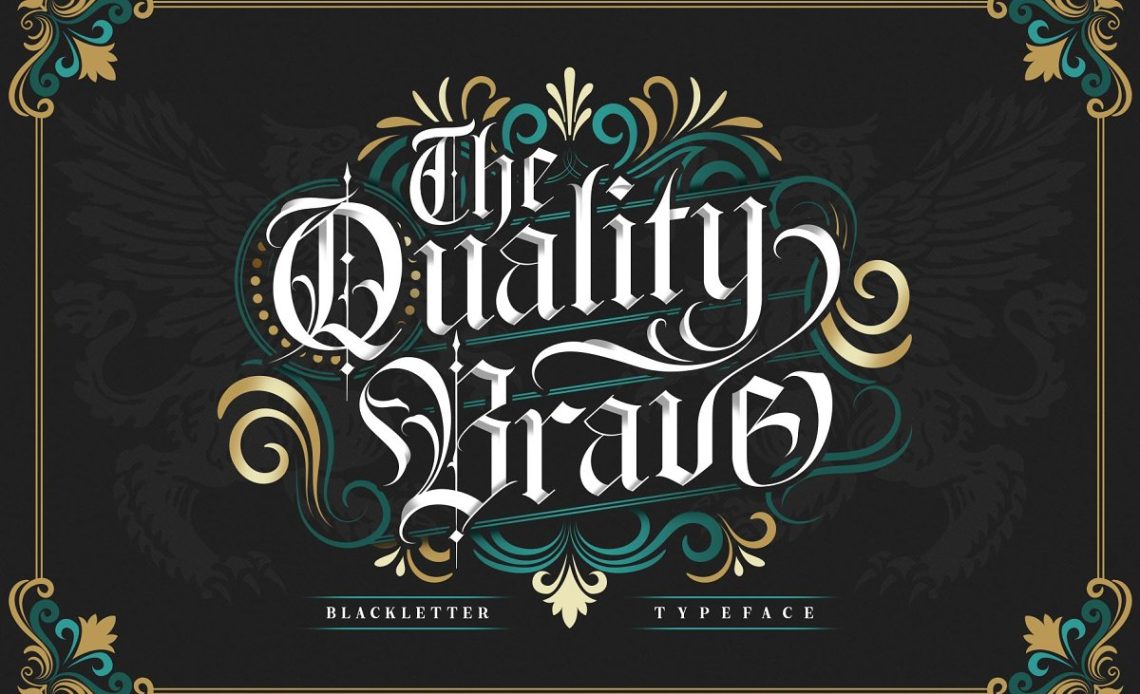
Are you ready to unleash your creativity with fonts that exude strength and uniqueness? Introducing The Quality Brave Typeface, a font inspired by the captivating Blackletter typeface. This modern yet powerful font is the perfect choice for individuals looking to make a bold statement with their designs.
With The Quality Brave, you'll have access to a plethora of alternative options including swash, ligature, and alternative characters. These features make it incredibly easy to create designs with strong or dark themes, allowing you to truly express your artistic vision.
But that's not all - The Quality Brave also boasts multilingual support, making it suitable for use in various international languages. Whether you're designing music album covers, tattoo logos, whiskey labels, or packaging for pomades, this font is the ultimate companion for any project with a dark and powerful concept.